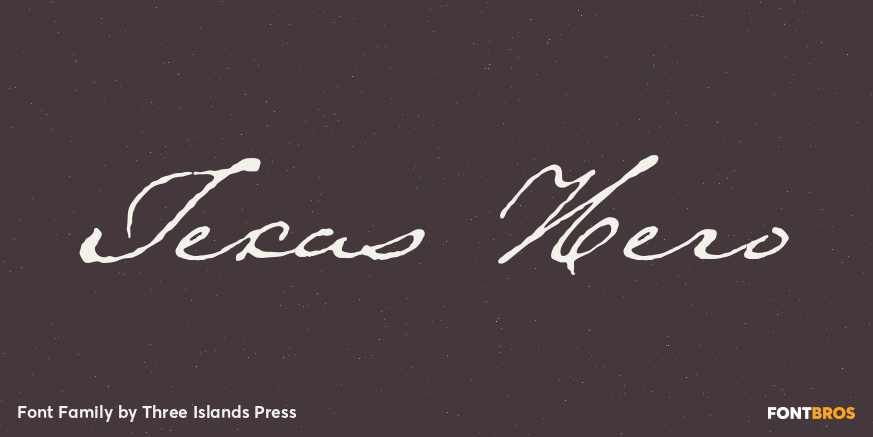
Texas Hero
About Texas Hero
It occurred to me years ago that the graphic arts community might find useful a digital typeface that mimicked the classic look of nineteenth-century handwriting. Conveniently, my mother then still volunteered at the Center for American History at the…